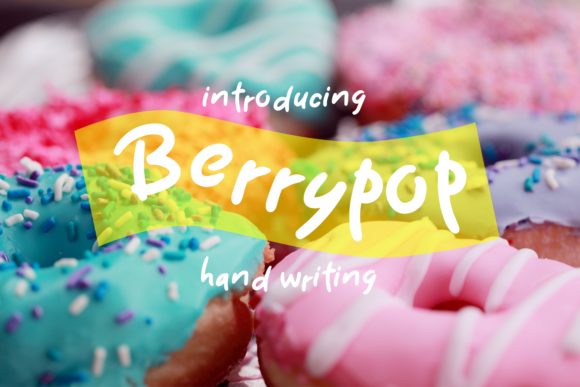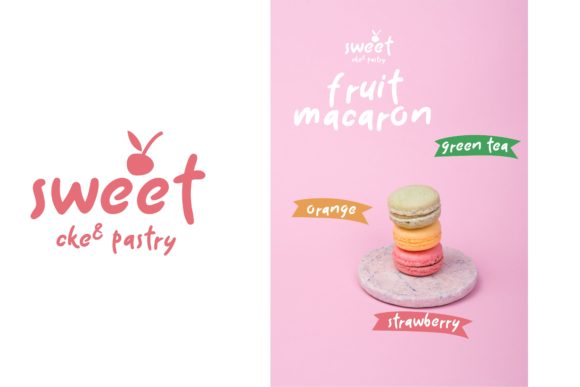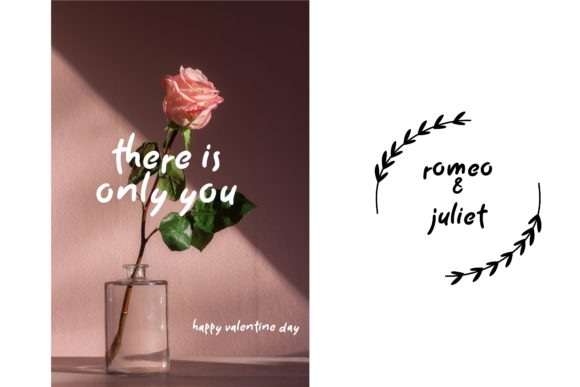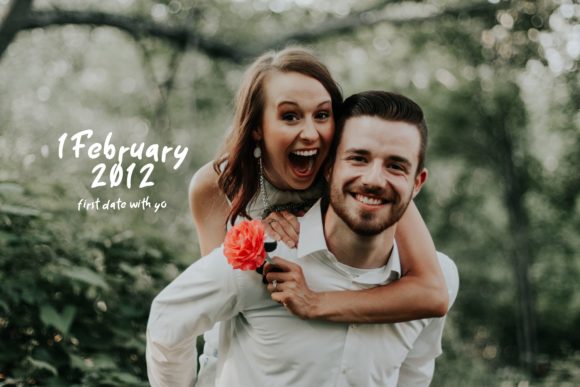
Berrypop Font
About Berrypop Font
The Berrypop is a bold and striking typeface. It’s perfect for magazines, greeting cards, valentine designs, invitations, and every other design which needs a fun and sweet typeface.